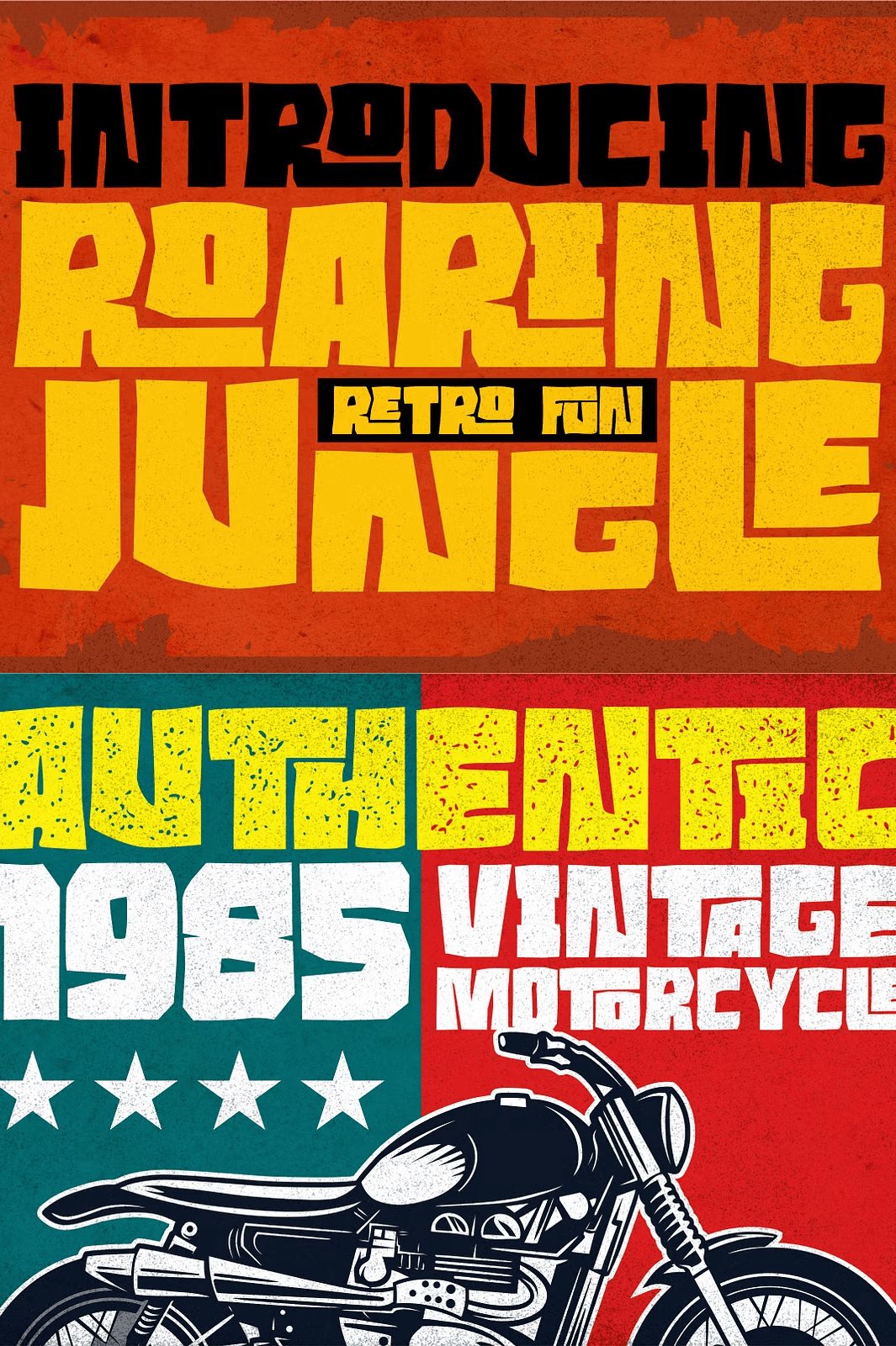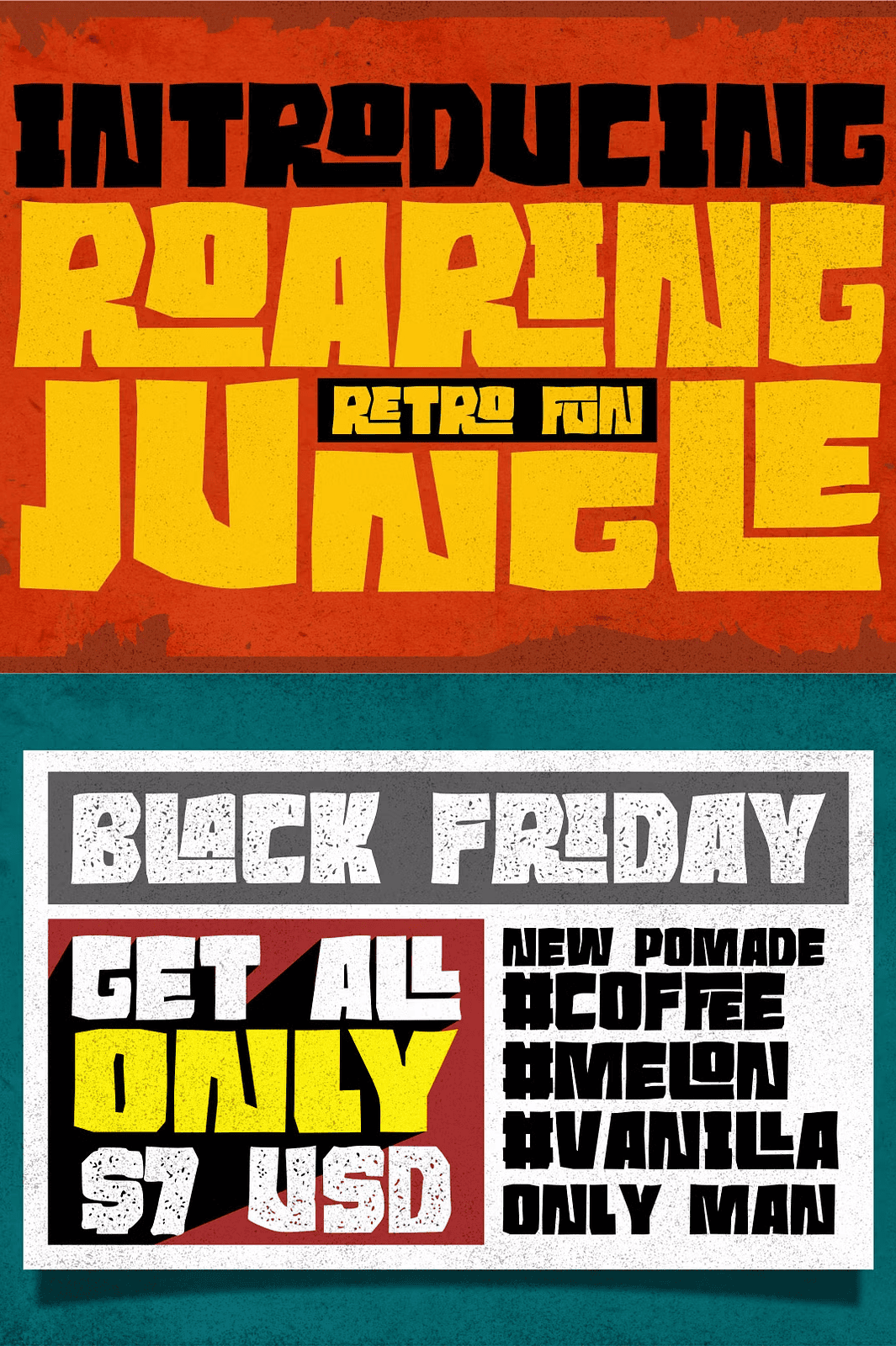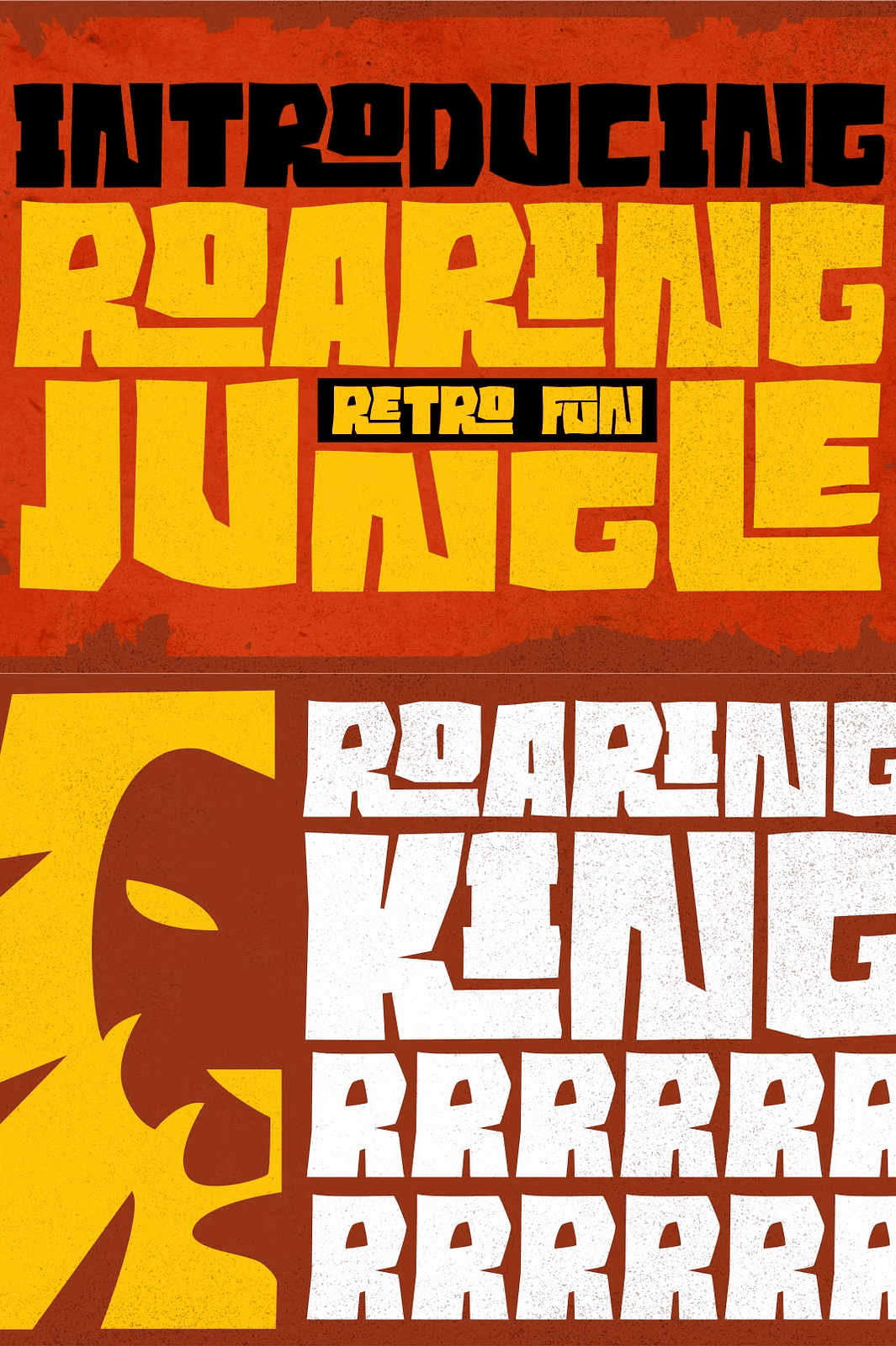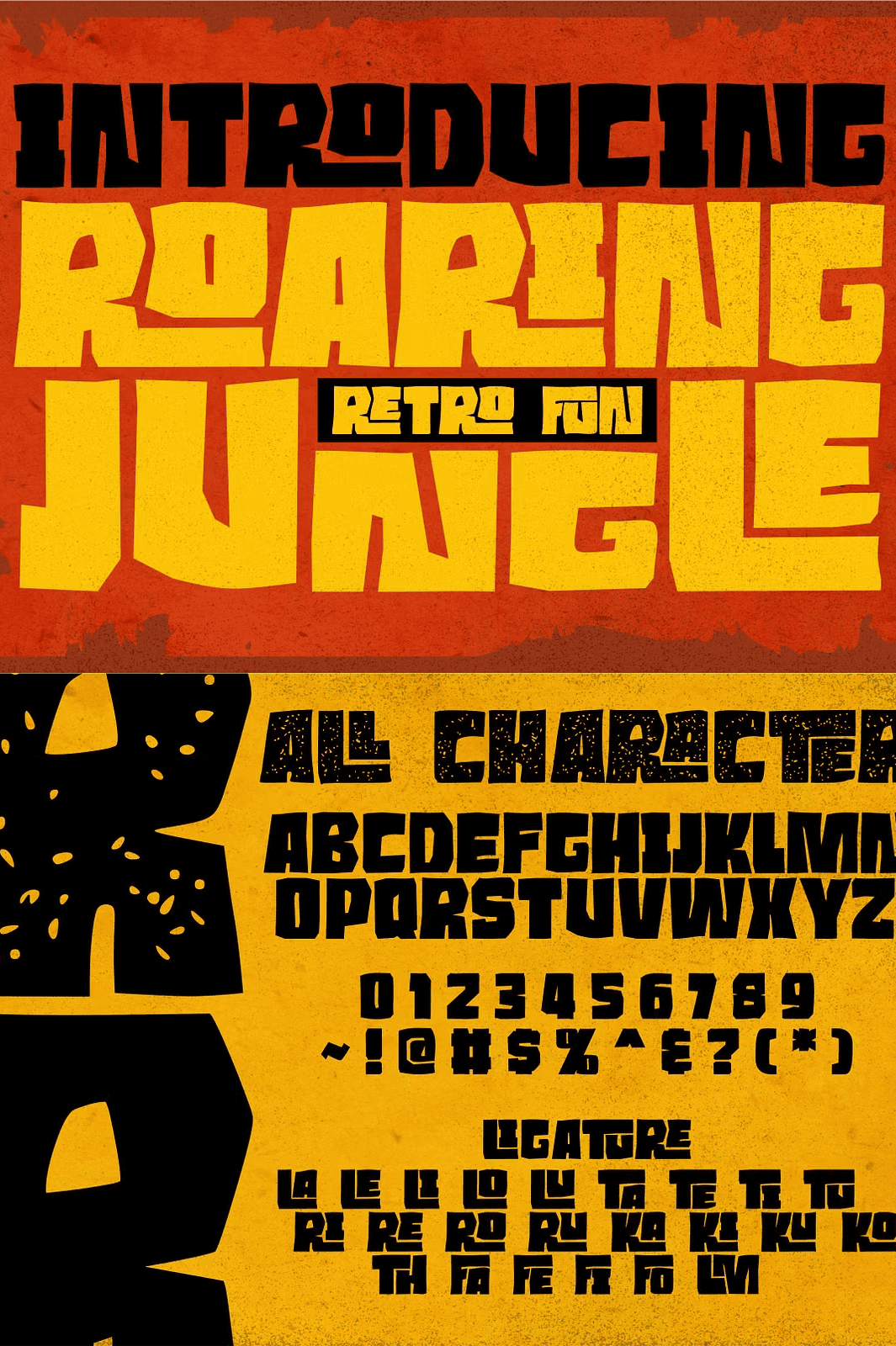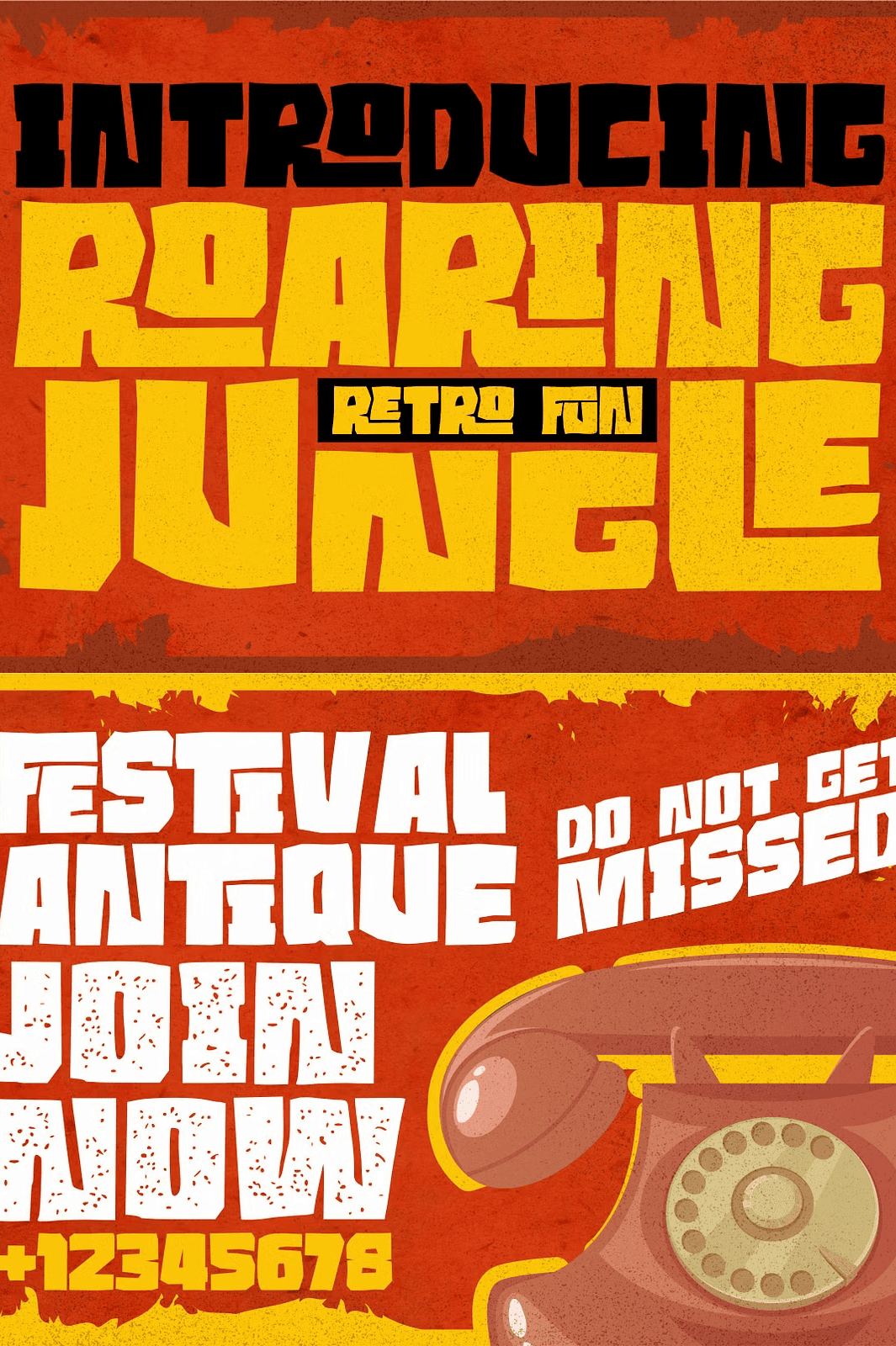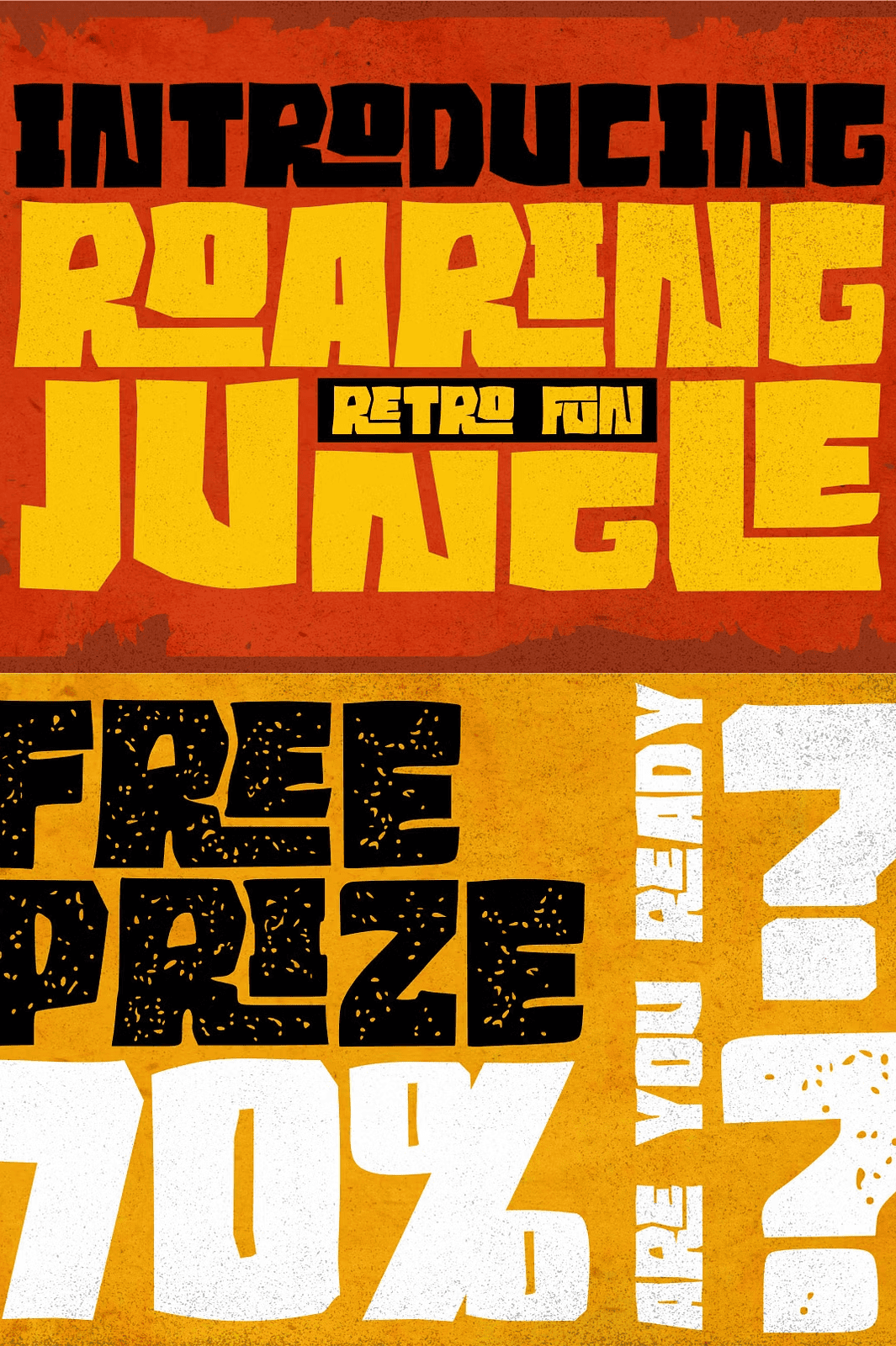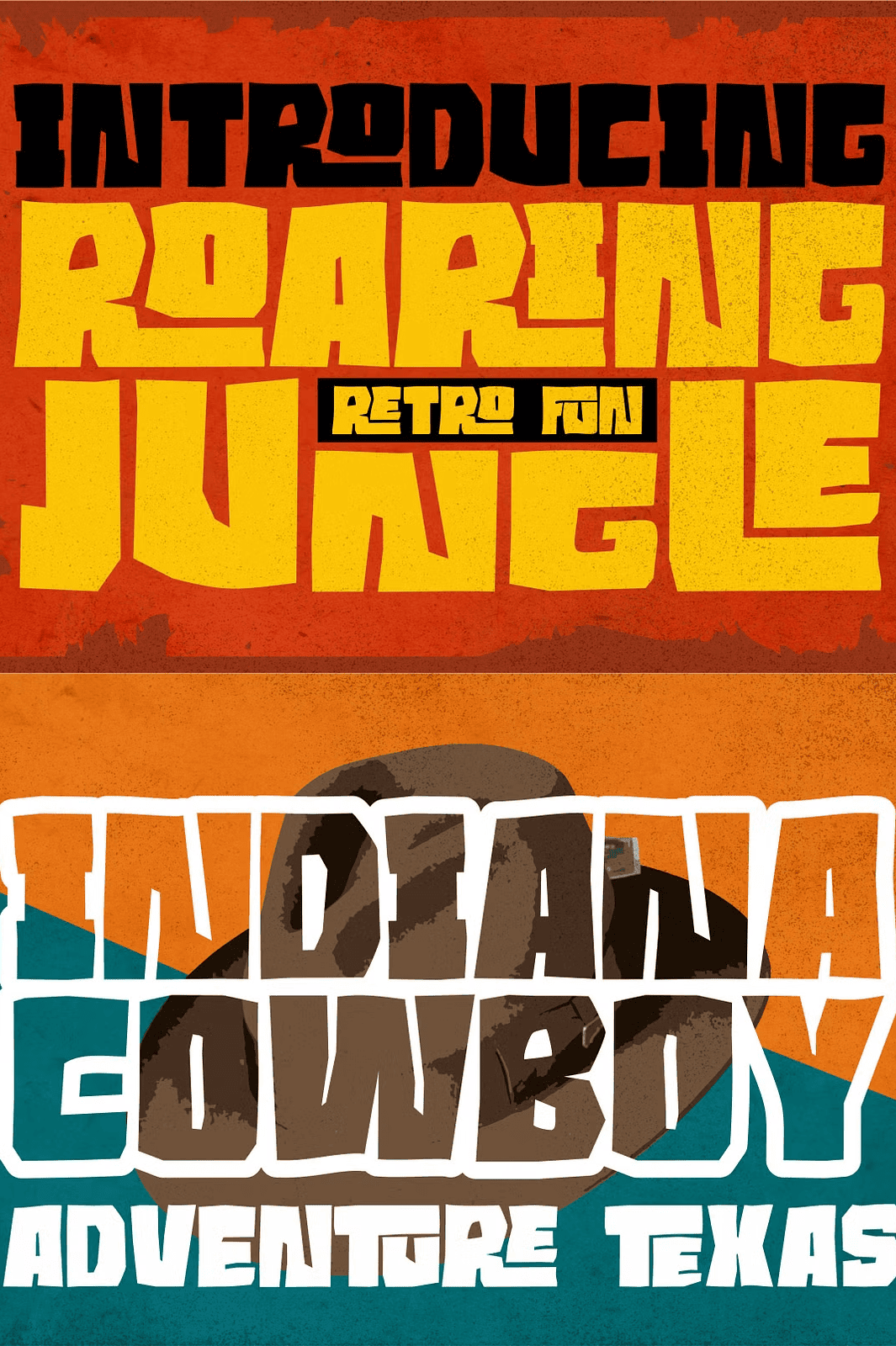
Command Attention with a Vintage Font That Roars to Life
Unleash the raw energy of the past with **Roaring Jungle**, a striking retro font that delivers instant visual impact. Inspired by the rugged curves and boxy edges of ancient stone carvings, this typeface combines vintage authenticity with modern design power. Every letterform pulses with character, making it the perfect choice for projects that demand standout presence and historical flair. Whether you’re crafting a vintage poster, designing a retro logo, or creating handwritten quotes, Roaring Jungle transforms ordinary ideas into unforgettable statements. Its unique structure draws the eye and establishes immediate mood—bold, free-spirited, and full of personality.
Master Your Visual Narrative with Dual Styles: Regular & Rough
Roaring Jungle gives you two distinct personalities in one font family—**Regular** and **Rough**—to match your creative vision. The **Regular** style offers clean, confident curves and defined edges, ideal for sophisticated logo work, packaging design, and editorial layouts. The **Rough** variant amplifies the vintage vibe with textured, hand-stylized strokes that mimic weathered stone, perfect for posters, merchandise, and artistic branding. Use them together or independently to add contrast, depth, and dynamic tension to your design. Switching between styles allows you to control the tone—smooth elegance or rugged authenticity—without compromising visual coherence.
Empower Your Brand with Multilingual Versatility
Designed for global appeal, Roaring Jungle includes **full multilingual support** across Latin-1 and extended character sets. From European languages to complex scripts, this font handles diverse text with precision and style. You can confidently use it in international campaigns, cross-cultural branding, or multilingual merchandise. Whether you’re localizing a product label in French or designing a retro poster in German, Roaring Jungle maintains its visual integrity and expressive strength. No more limiting your audience—this font speaks to every reader, everywhere.
Elevate Every Project with High-Impact Applications
Roaring Jungle is engineered to perform across a wide range of creative fields:
– 🖼️ **Vintage Posters & Billboard Design**: Create bold, eye-catching displays that stand out in urban environments and social media feeds
– 🏷️ **Product Packaging**: Make your products pop with retro-inspired labels for food, craft beverages, apparel, and gift items
– 🏆 **Logo & Brand Identity**: Build memorable brand names that feel authentic, timeless, and uniquely stylized
– 🛍️ **Merchandise & Apparel**: Print striking slogans on t-shirts, tote bags, hats, and mugs with high visual impact
– ✍️ **Handwritten Quotes & Social Media Graphics**: Add personality to digital content with expressive, stone-like lettering
– 🎨 **Art & Editorial Layouts**: Use in books, zines, and magazines to set a vintage tone and elevate storytelling
No matter the medium, Roaring Jungle ensures your message lands loud and clear.
– ✅ **Prettied glyphs & ligatures**: Enhanced visual appeal with stylistic alternatives
Don’t settle for ordinary. Stand out with a font that commands attention and carries a story. With its unique stone-inspired curves, dual styles, and robust multilingual features, Roaring Jungle is a must-have for every designer’s toolkit. Whether you’re rebranding a vintage shop, launching a retro product line, or just craving that retro edge, this font delivers the power and personality you need.